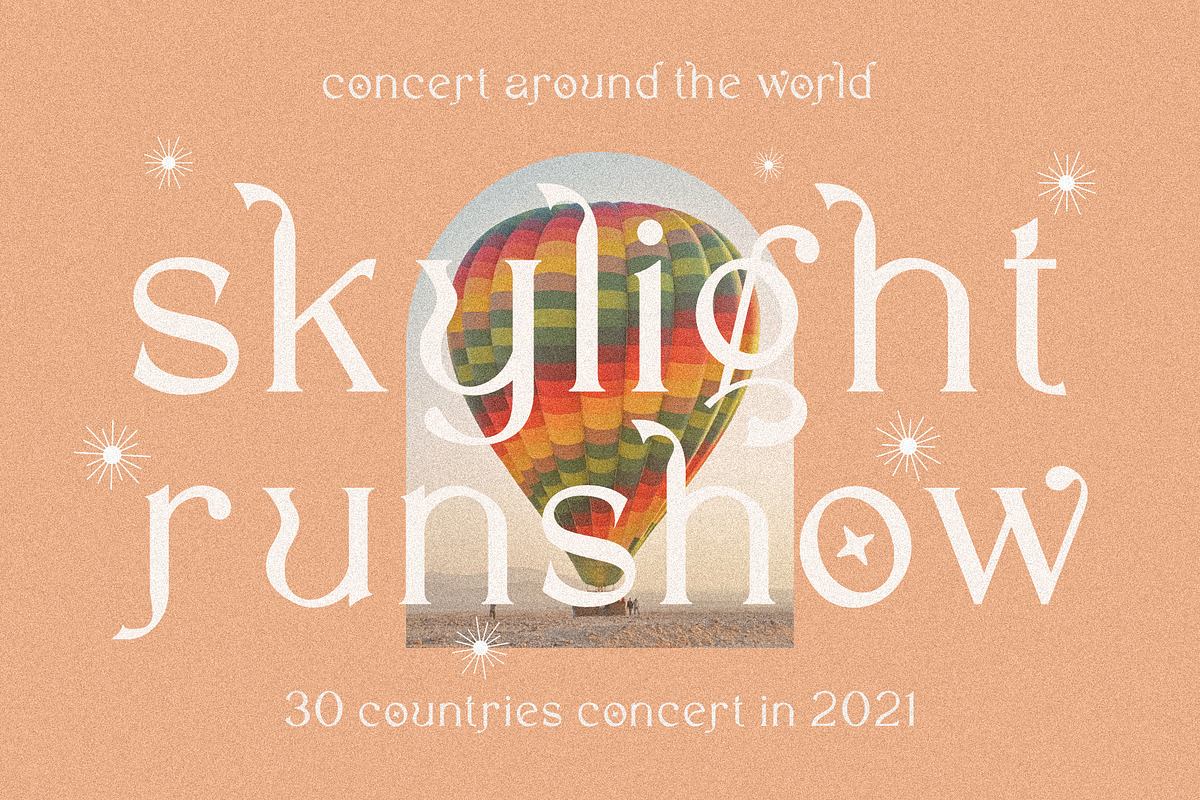
VT Garlich Grow - Modern Serif Free Download
VT Garlich Grow Modern Serif Font Free Download
This contemporary serif font excels in magazine layouts, editorial design, book typography, luxury branding, corporate identities, website headers, fashion publications, and premium packaging design. Its refined character makes it perfect for projects requiring sophisticated readability combined with modern aesthetic appeal.
VT Garlich Grow Modern Serif Font is exciting because it masterfully bridges traditional serif elegance with cutting-edge contemporary design principles. The font features carefully crafted proportions, refined stroke contrast, and subtle details that create exceptional readability while maintaining distinctive character. Its modern interpretation of classic serif forms ensures timeless appeal with fresh, current relevance.
The VT Garlich Grow Modern Serif Font family includes multiple weights from light to bold, along with italic variations and extended character sets. Many versions feature stylistic alternates, ligatures, and special glyphs that enhance typographic flexibility and creative possibilities.
Whether you're designing high-end publications, prestigious brand identities, or sophisticated digital interfaces, VT Garlich Grow Modern Serif Font Free Download delivers professional excellence with artistic flair. This typeface combines the trustworthiness of traditional serifs with the innovation of modern design, making it ideal for brands that value both heritage and progress. Its exceptional legibility across various sizes and media ensures consistent performance in both print and digital applications, while its distinctive personality adds memorable character to any typography project requiring sophistication and contemporary elegance.